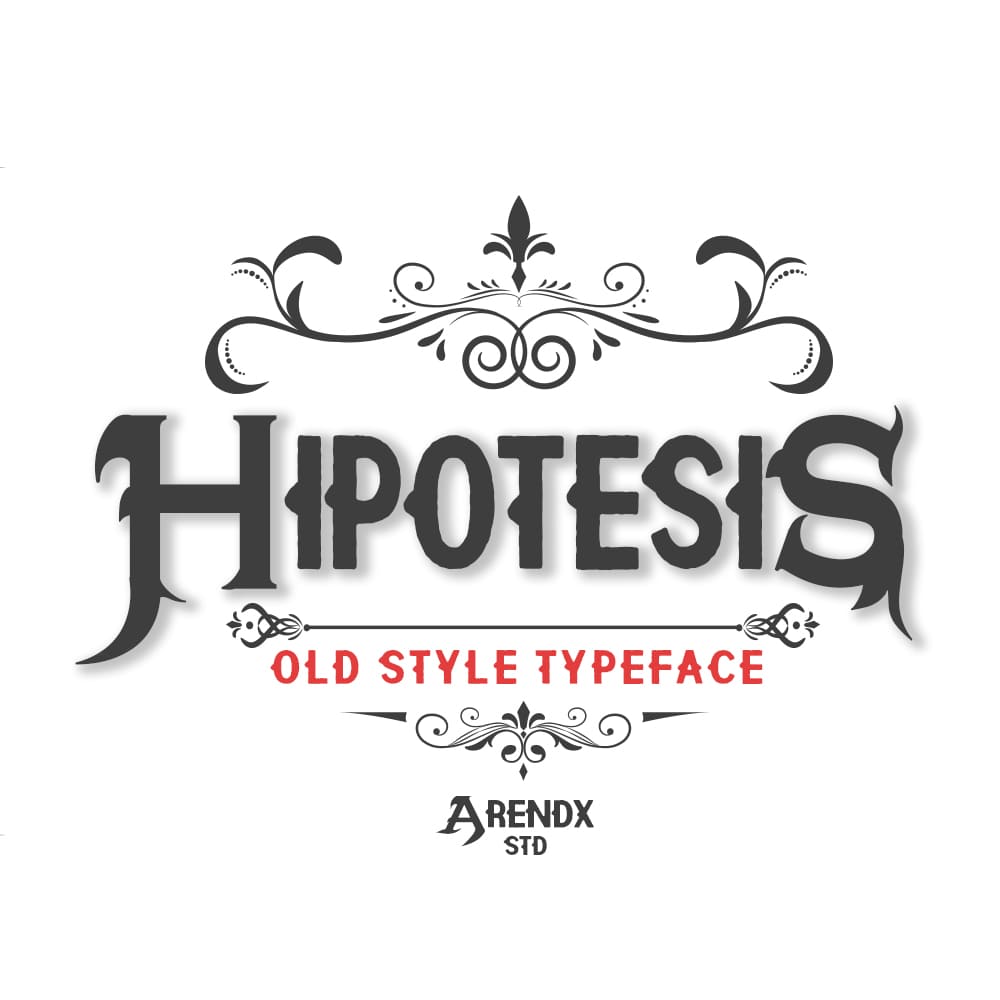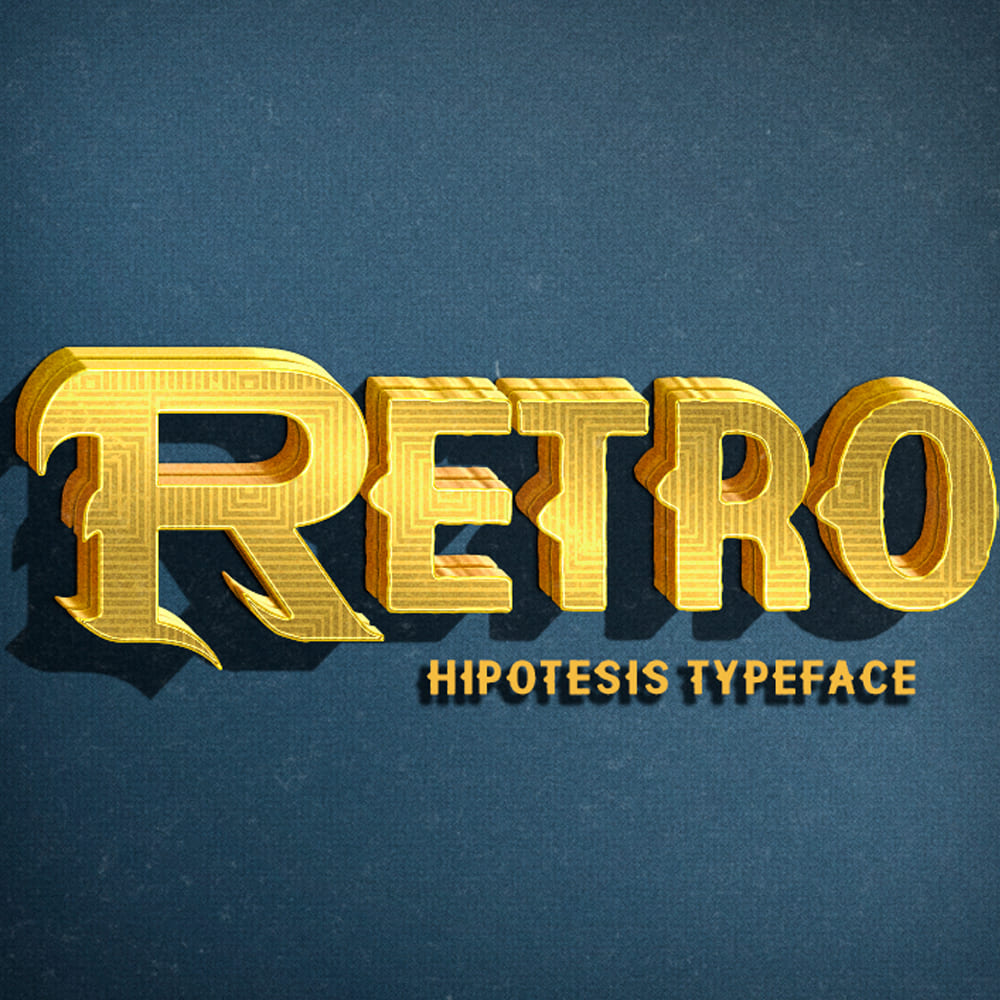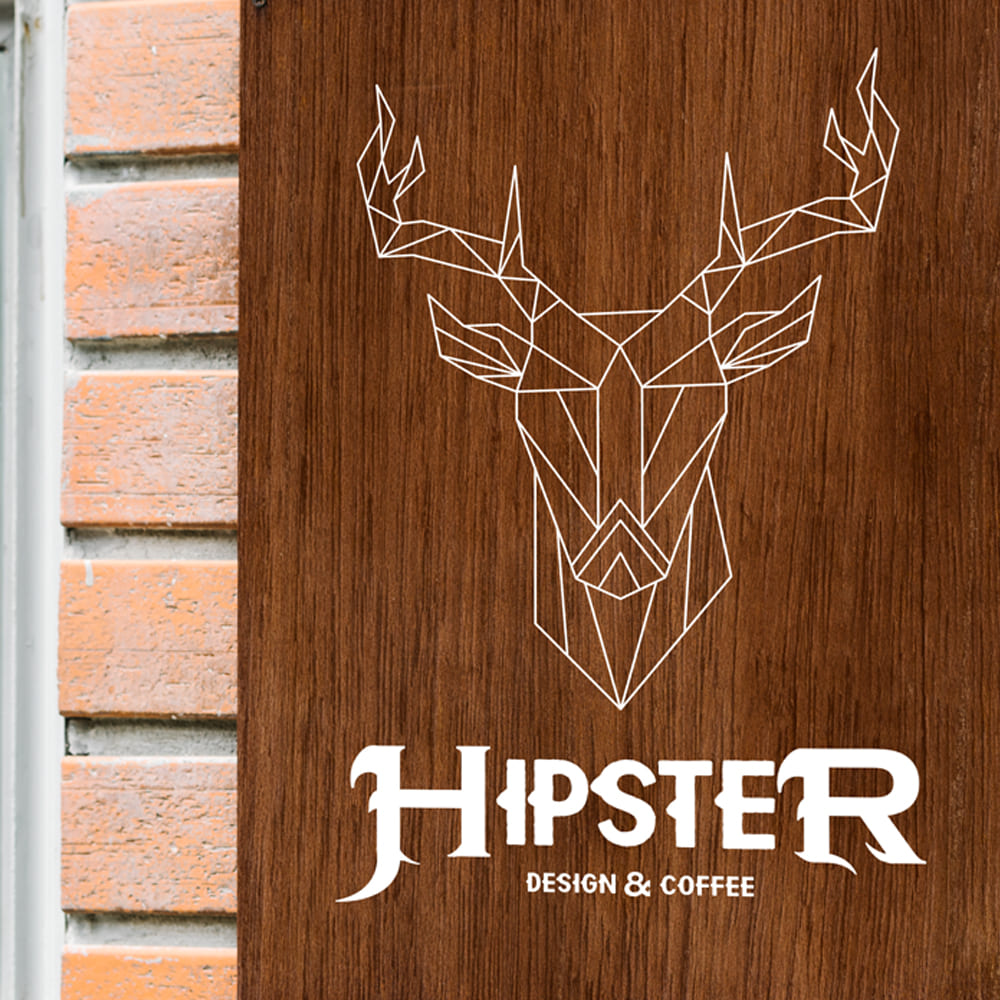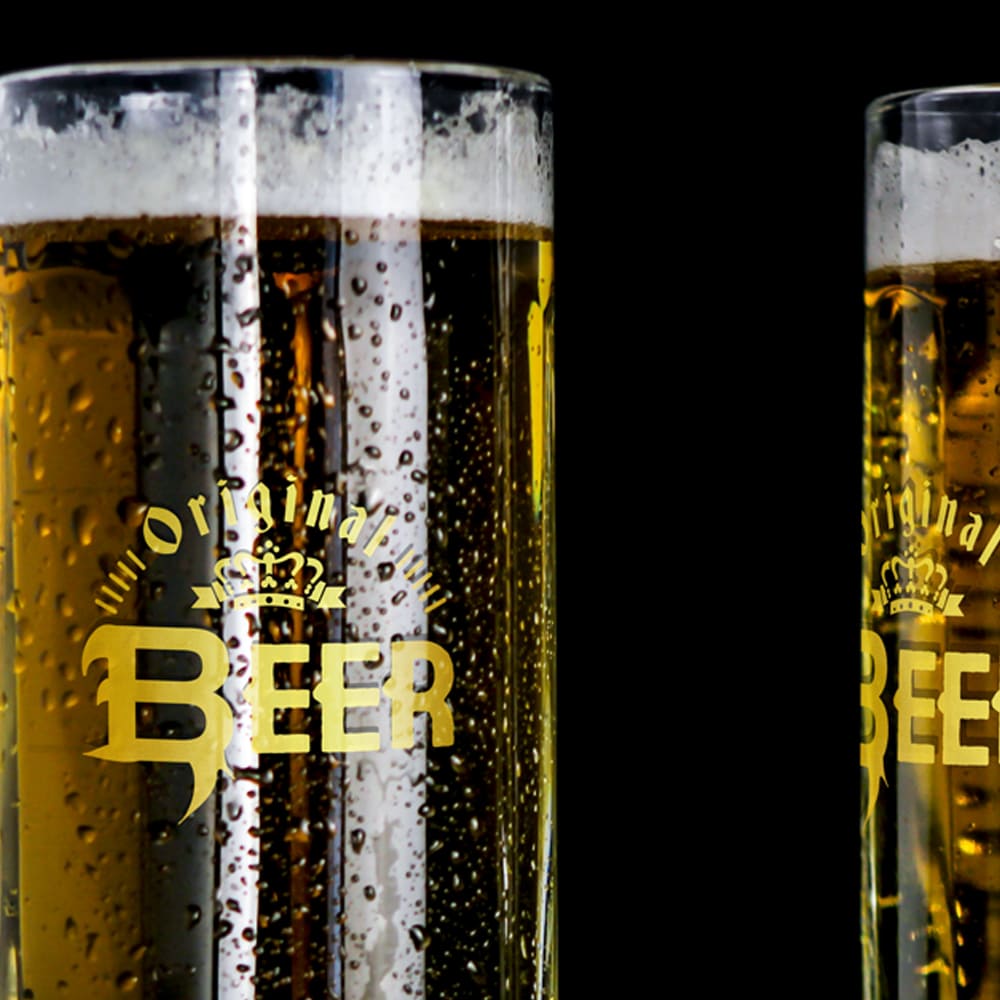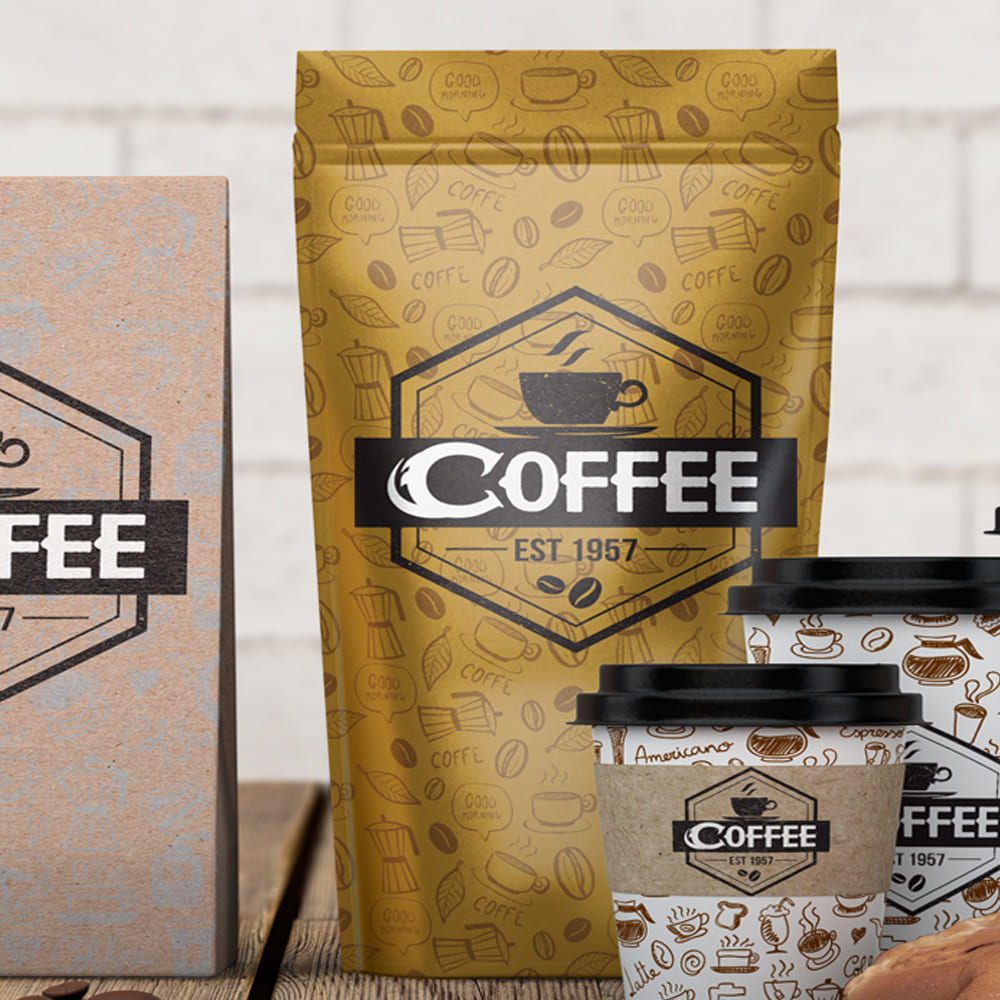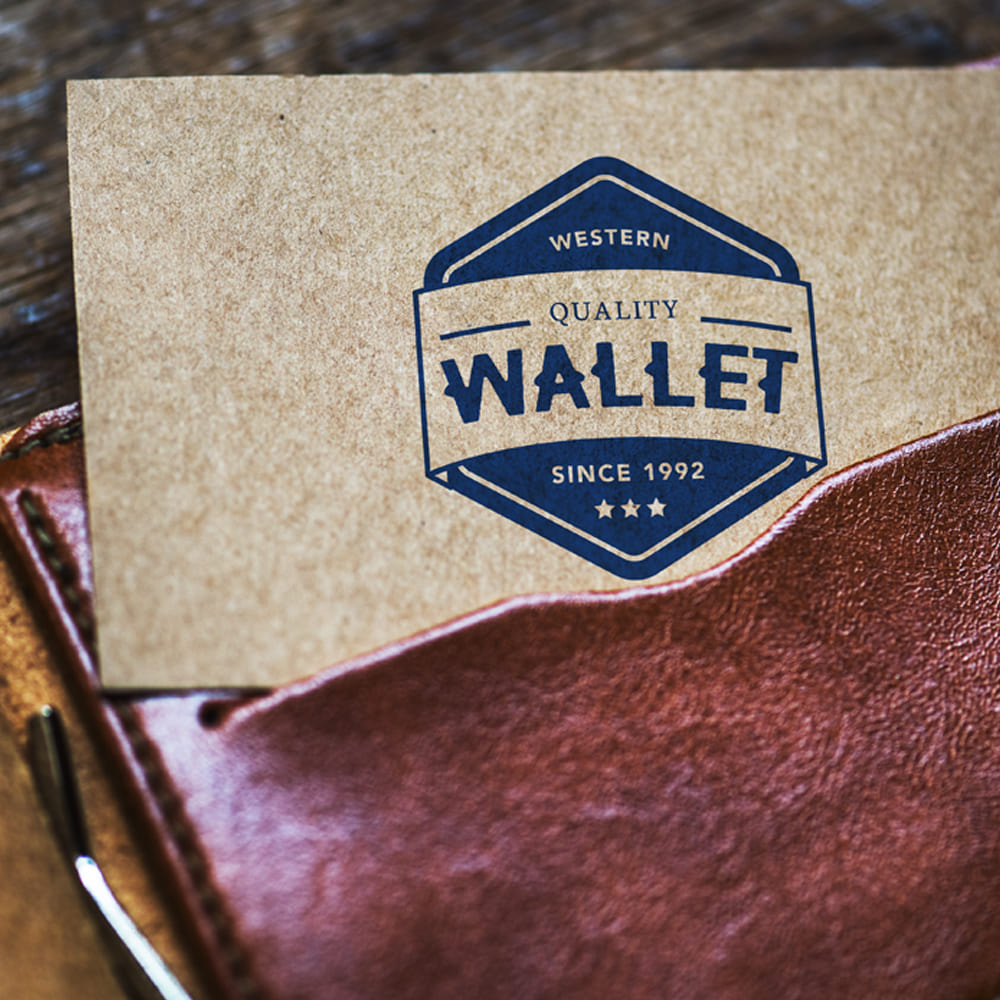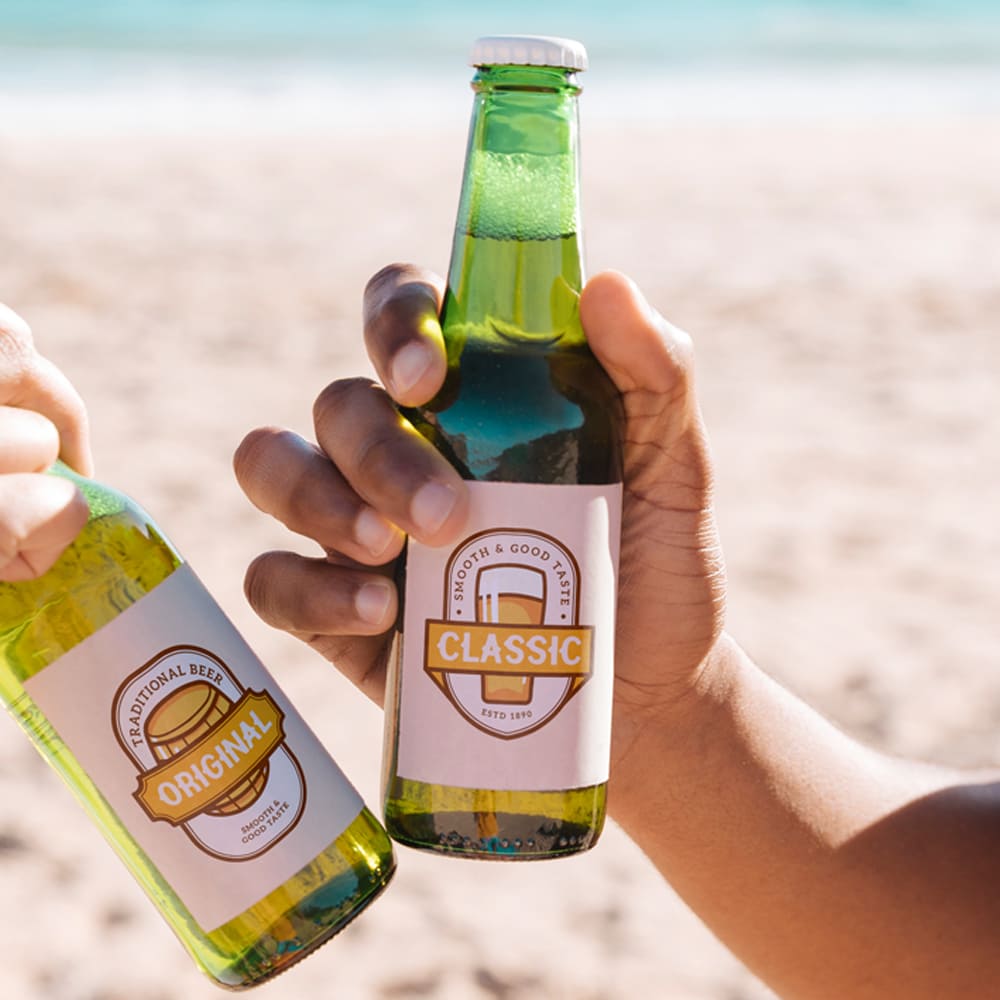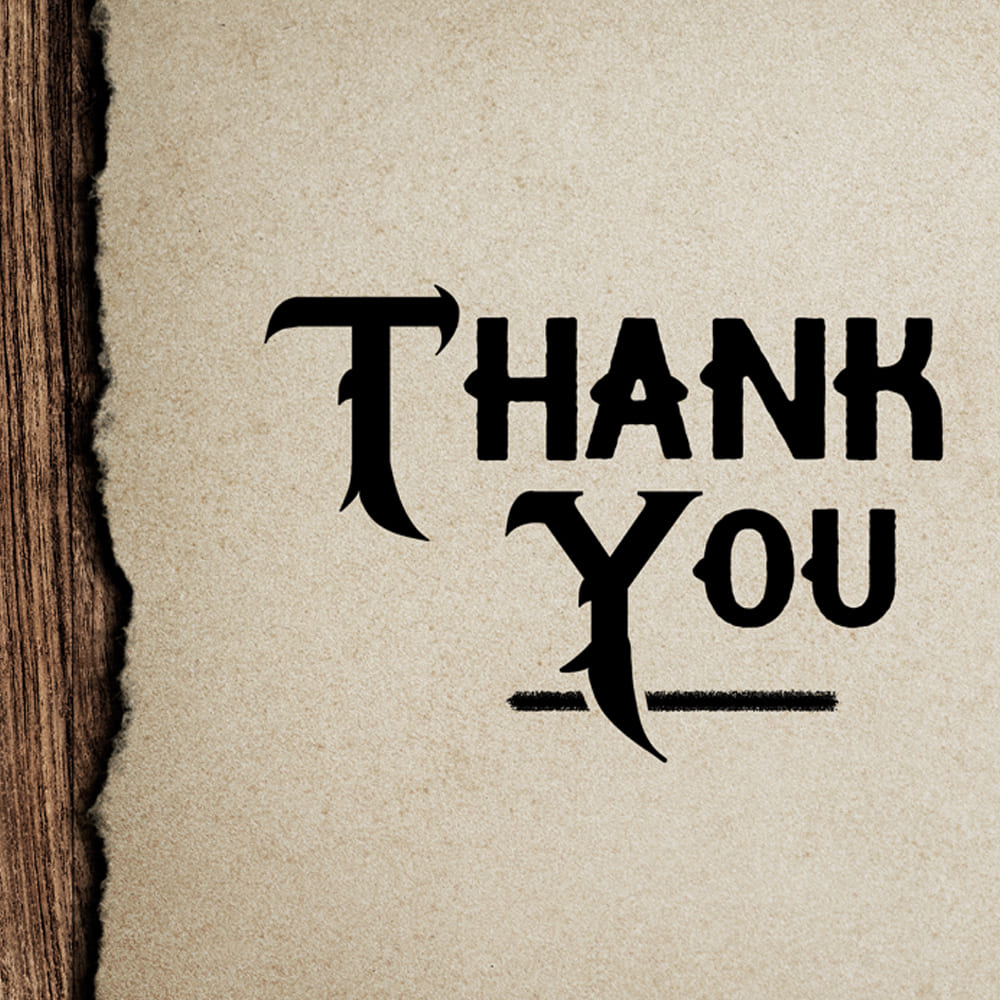
Hyphothesis Family (3 fonts)
From Arendxstudio
Hypothesis is a typeface inspired in tattoo letters, chicano culture and calligraffiti. It works well with normal size text, but it works even better for large displays, short words, or even just to incorporate a few or single characters in a design. Suitable for many creative products & tattoo designs, like posters, t-shirt,s street wear, logo, signage, headlines, etc.
Feature Include :
1.Uppercase & Lowercase
2.Numer & Punctuation
4.multilaguage support